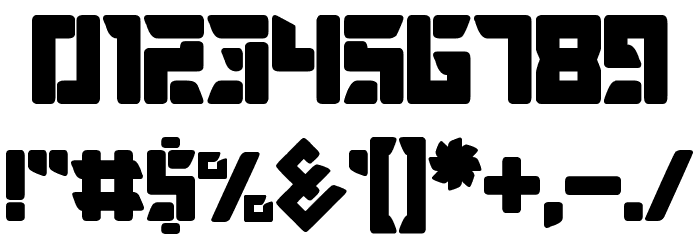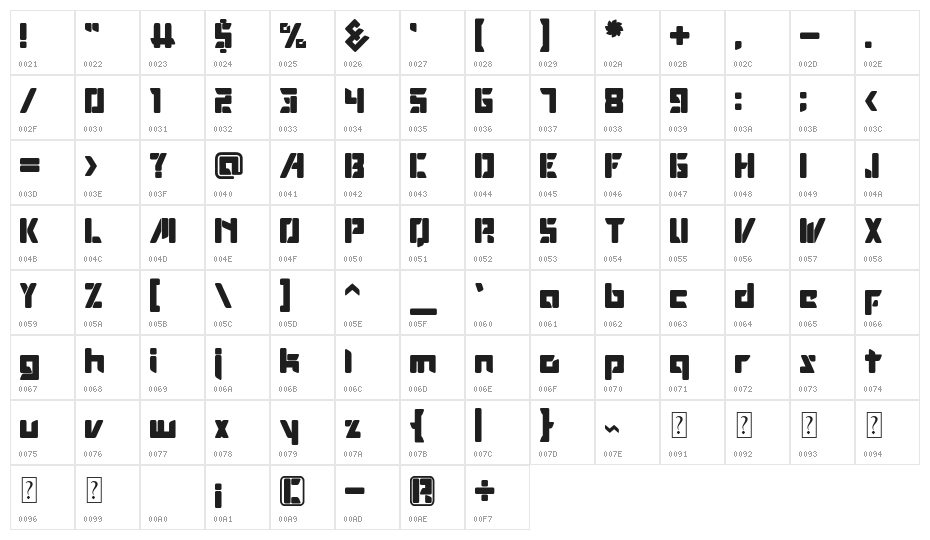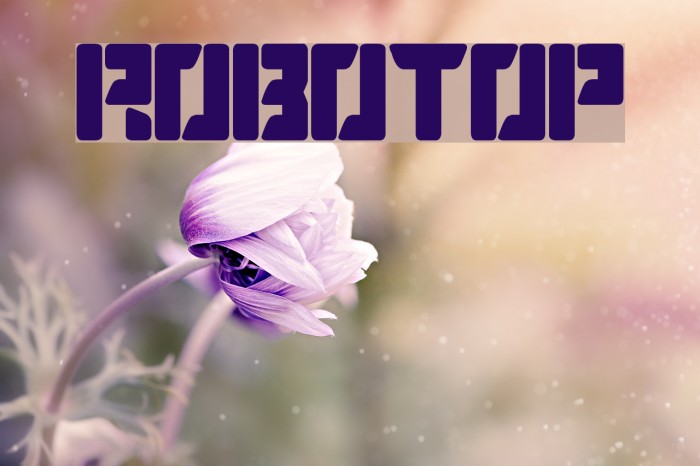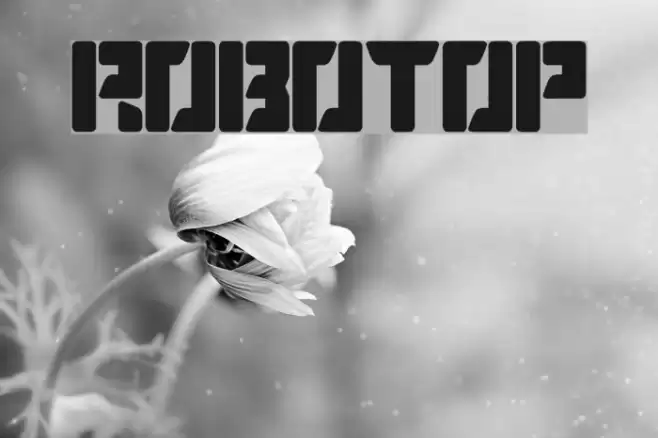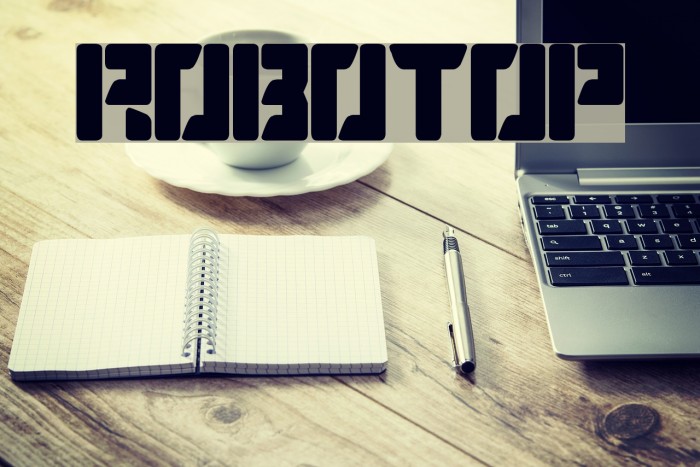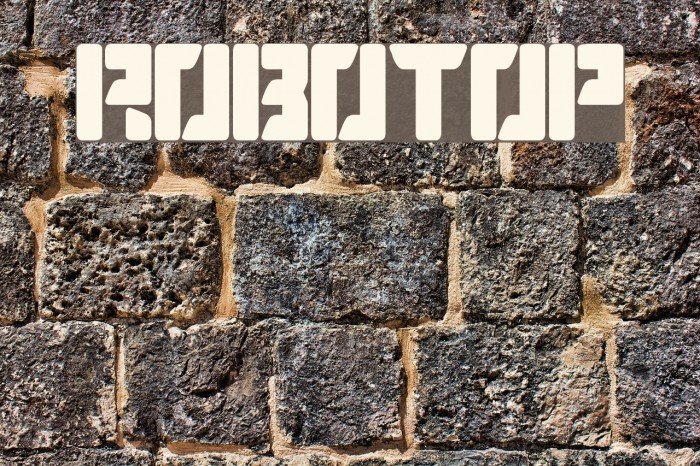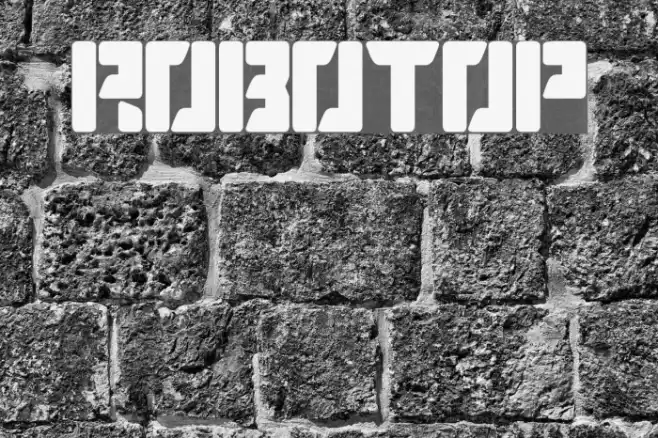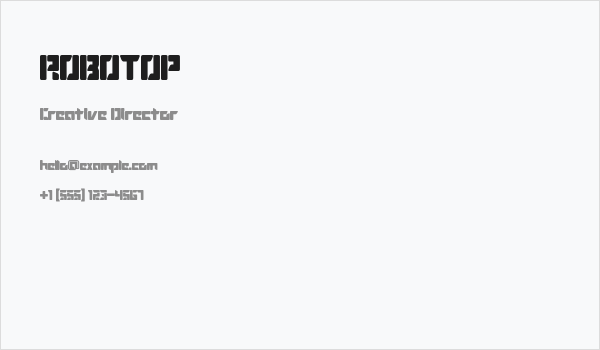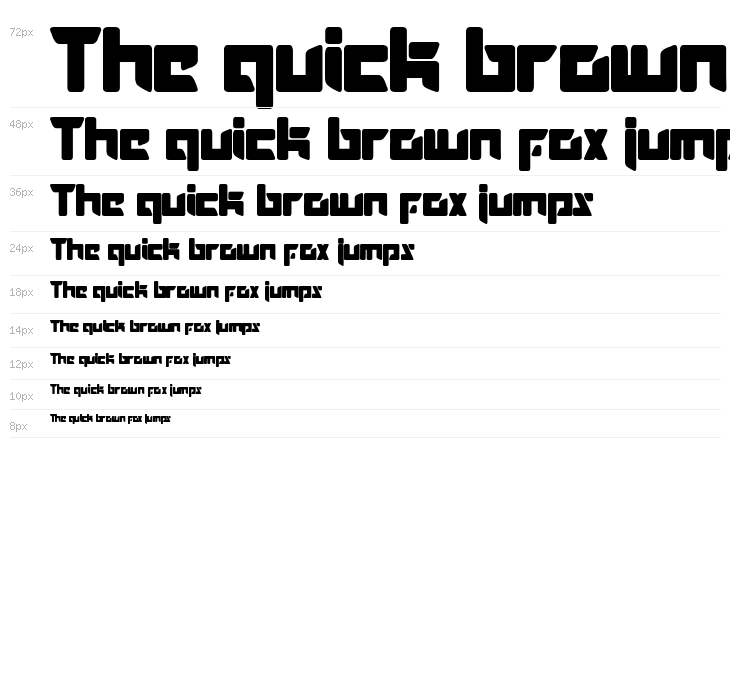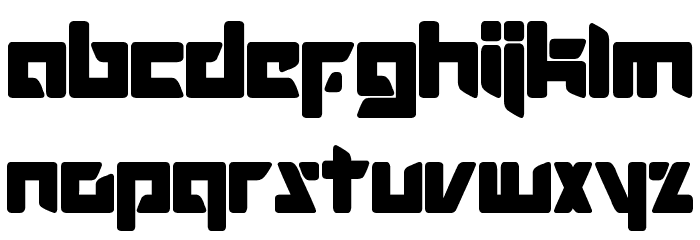
ROBOTOP Font
ROBOTOP Description
This font features a bold, futuristic design with a strong geometric influence. The characters are constructed with thick, block-like shapes, giving them a robust and industrial appearance. The angular cuts and sharp edges contribute to a modern and tech-inspired aesthetic. The uppercase and lowercase letters maintain a consistent style, with the lowercase being slightly more compact. Numbers and special characters follow the same design principles, ensuring uniformity across the typeface. The overall look is both striking and functional, making it suitable for projects that require a bold statement.
| Proposed Projects | Ideal for technology branding, sci-fi posters, video game titles, and modern product packaging. |